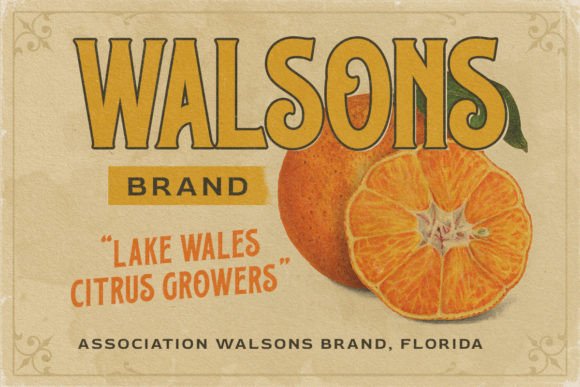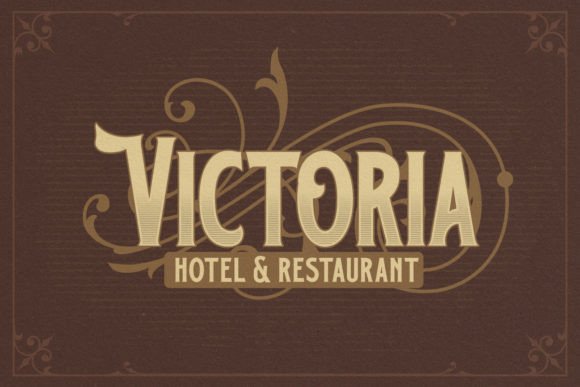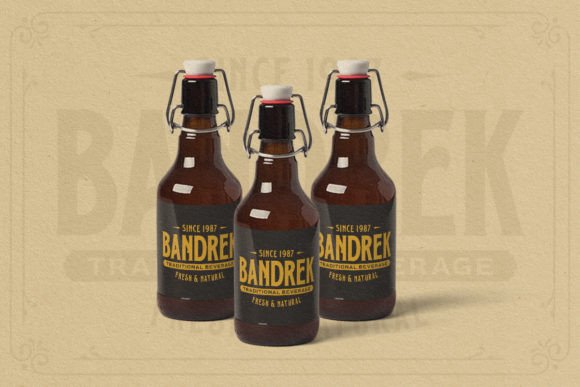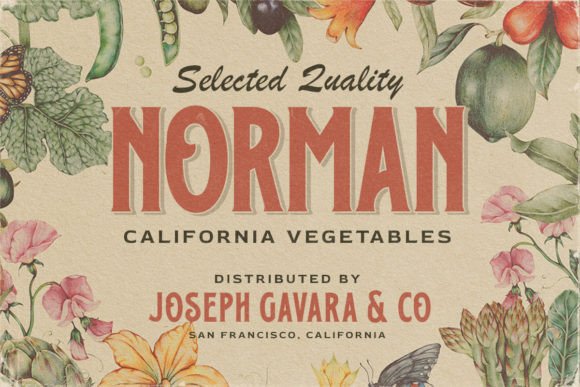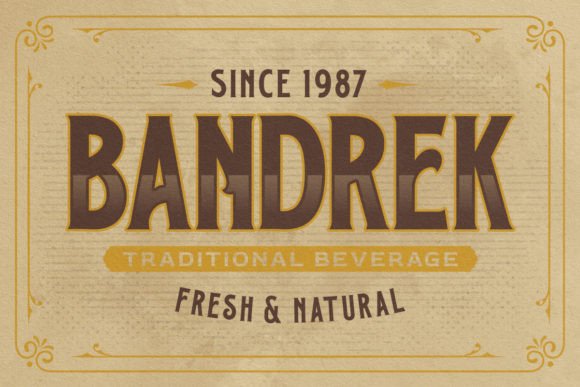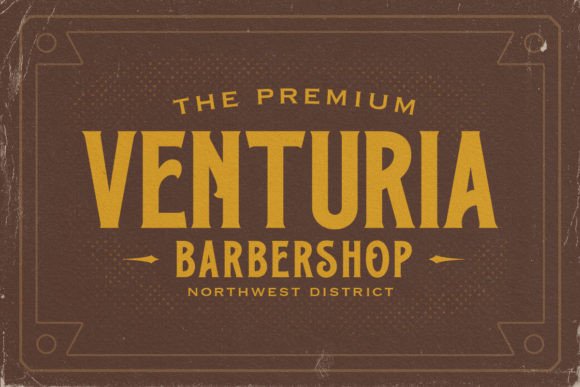
The Designer’s Delight: Brains Courage Font
I’ll never forget the struggle I faced while working on a vintage-themed project for a client. The brief was clear: create a design that exudes nostalgia and sophistication. But, as I scrolled through my font library, I couldn’t find the perfect fit. That’s when I stumbled upon Brains Courage Font, and it instantly became my go-to choice. In this article, I’ll share my experience with this stunning font, its features, and how to make the most of it in your designs.
A First Impression: What Makes Brains Courage Font Special
Brains Courage Font is a classy, vintage-style display font that adds a stylish touch to headlines and logotype projects. Its strong, confident, and dynamic appearance makes it perfect for designers, crafters, and creative hobbyists looking to infuse their work with a nostalgic character.
Here’s what I love about Brains Courage Font:
- ✨ Unique Vintage Appeal: The font’s vintage style is beautifully crafted, making it perfect for projects that require a nostalgic touch.
- ✅ High Versatility: Brains Courage Font can be used for a wide range of projects, from logos and headlines to posters and packaging.
- 💡 Ease of Use: The font is easy to read and works well in various sizes, making it a great choice for both print and digital designs.
While Brains Courage Font is an excellent choice, there are a few minor quirks to consider:
- 🤔 Limited Use in Body Text: Due to its display nature, Brains Courage Font might not be the best choice for body text or long paragraphs.
- ⚠️ Glyph Limitations: Some users might find the glyph options limited, but this can also be seen as a stylistic choice that adds to the font’s uniqueness.
Brains Courage Font was crafted with the goal of bringing a touch of vintage sophistication to modern designs. Inspired by classic typography from the early 20th century, the font’s designer aimed to create a typeface that exudes confidence and nostalgia. The result is a font that not only looks great but also tells a story through its elegant lines and classic appeal.
| Font Name | Brains Courage Font |
| Author | letterhend |
| What type of projects is Brains Courage Font best suited for? | Brains Courage Font is ideal for headlines, logotype projects, posters, and any design that requires a vintage or nostalgic touch. |
| Is Brains Courage Font available in different weights or styles? | Currently, Brains Courage Font comes in a single style, but its versatility and range of glyphs make it adaptable to various design needs. |
| Can I use Brains Courage Font for body text? | While Brains Courage Font can be used for short paragraphs, it’s primarily designed as a display font. For longer body text, a more readable font might be preferable. |